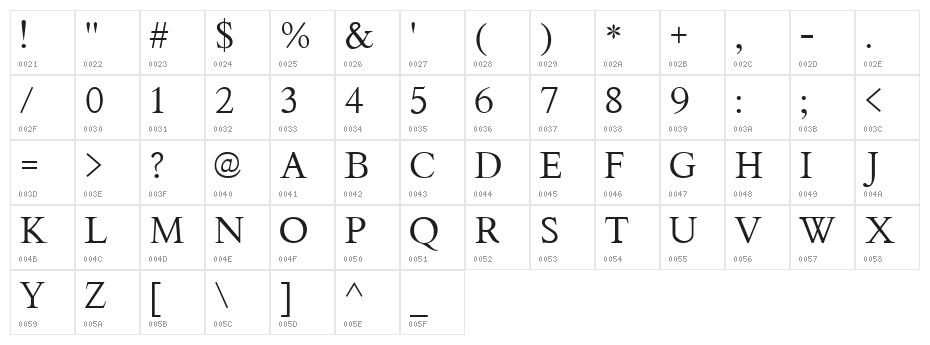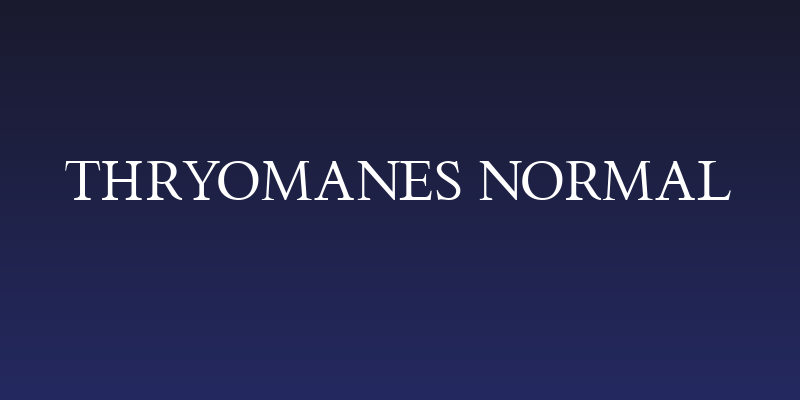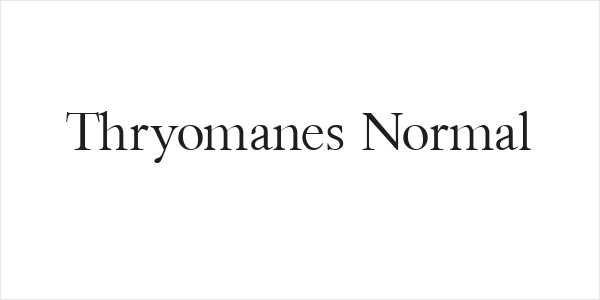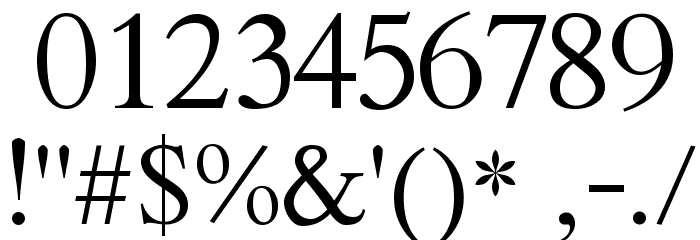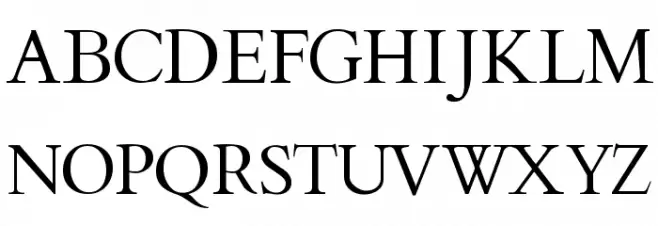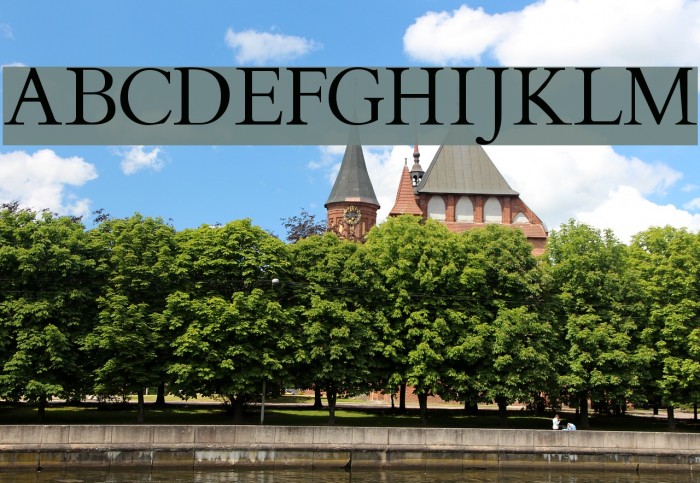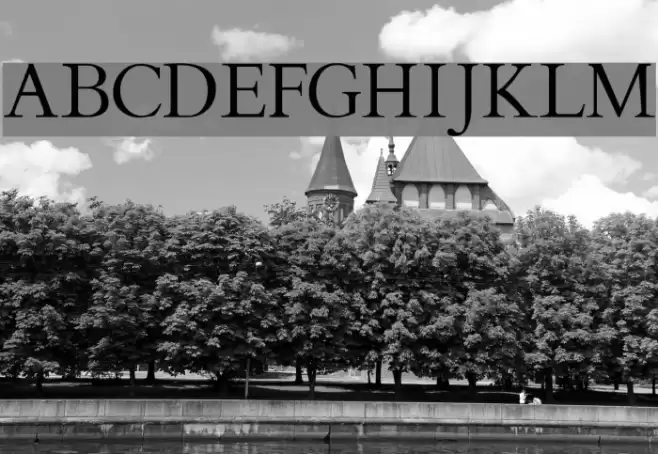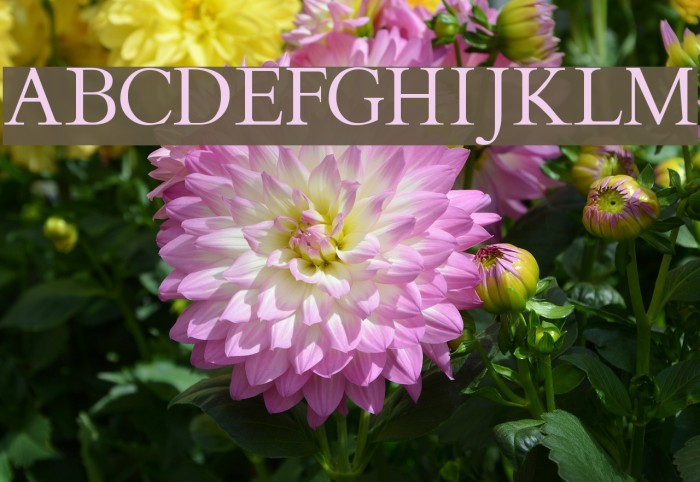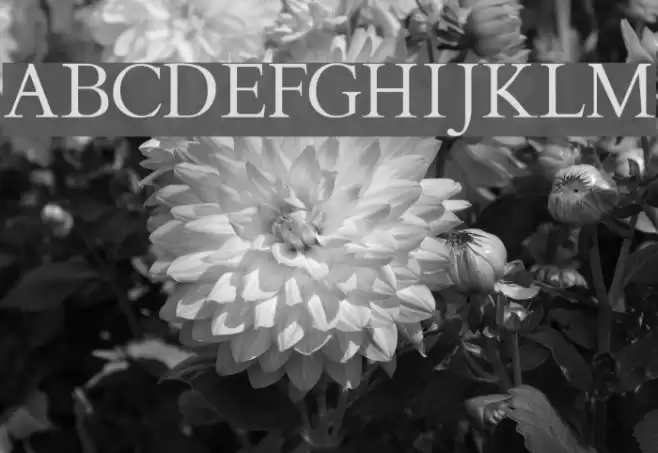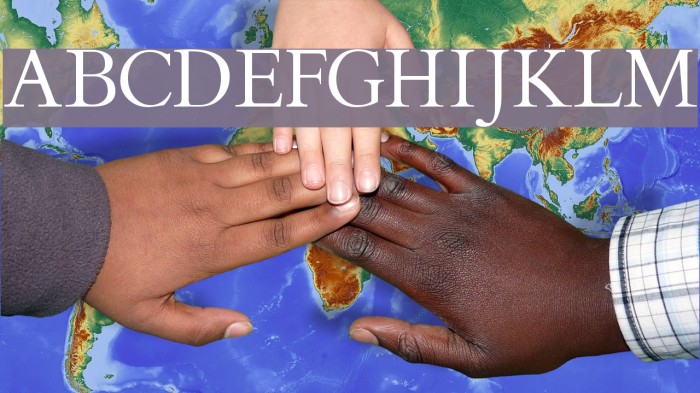
Thryomanes Normal Font
| Общий стиль | Classic |
| Область применения | Headlines, Body text, Logos |
| Рекомендуемые проекты | Ideal for editorial design, book covers, formal invitations, and branding projects that require a touch of elegance. |